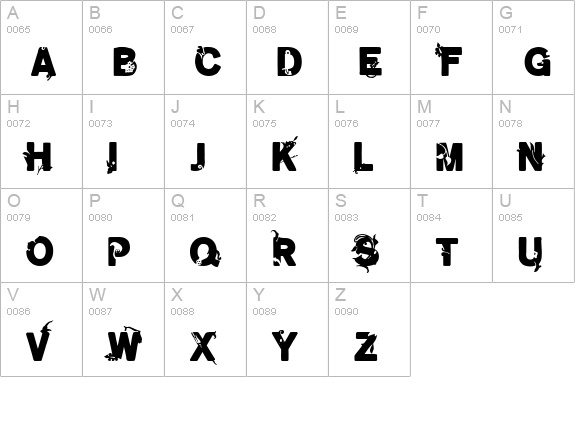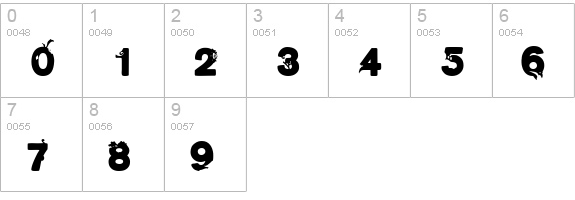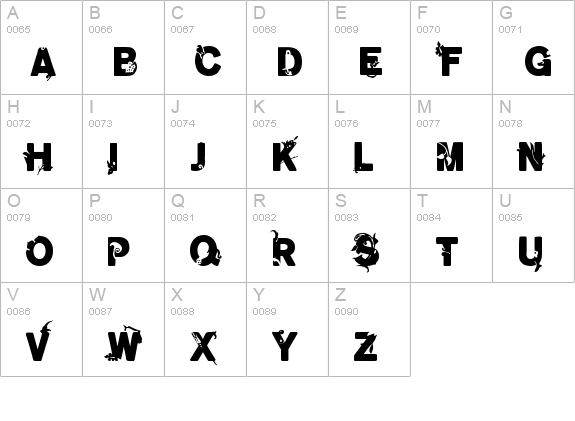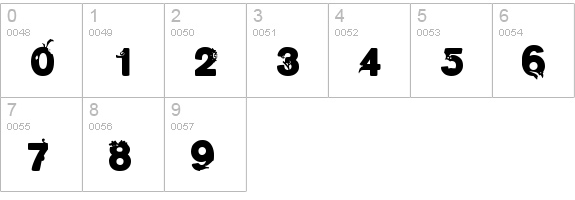
GardenOneThird Font Details
GardenOneThird font is a charming and elegant typeface designed to add a touch of whimsy to your projects. With its delicate curves and playful style, this font is perfect for creating invitations, greeting cards, and other creative designs. The GardenOneThird font is not only visually appealing but also versatile, making it suitable for a wide range of design projects. Best of all, GardenOneThird font is available for free download at FontsMarket.com. This means you can easily access this beautiful font and use it in your projects without any cost. Whether you're a professional designer or a hobbyist looking to add a special touch to your creations, GardenOneThird font is a fantastic choice. Download it today and let your creativity blossom with this delightful typeface.